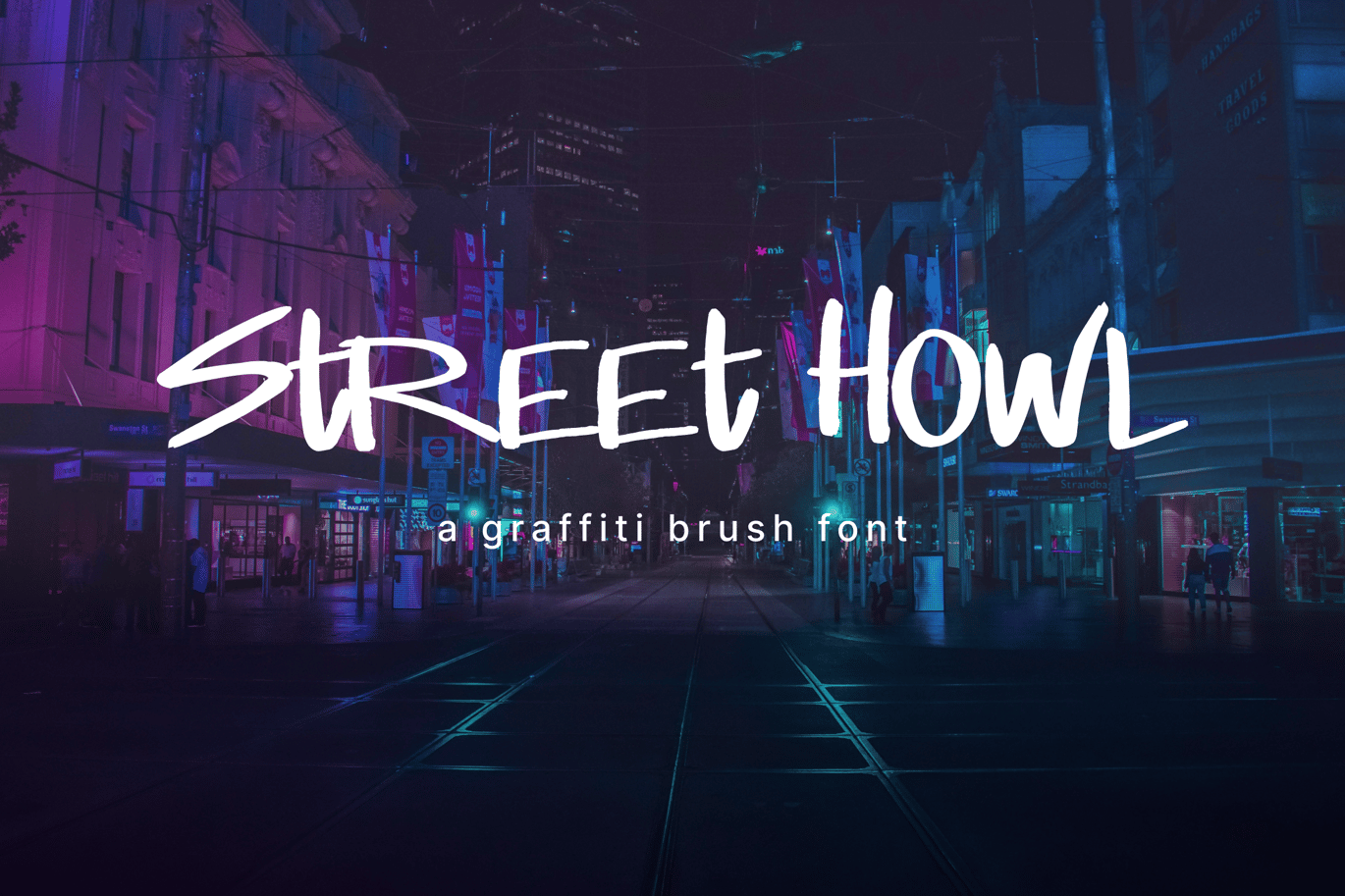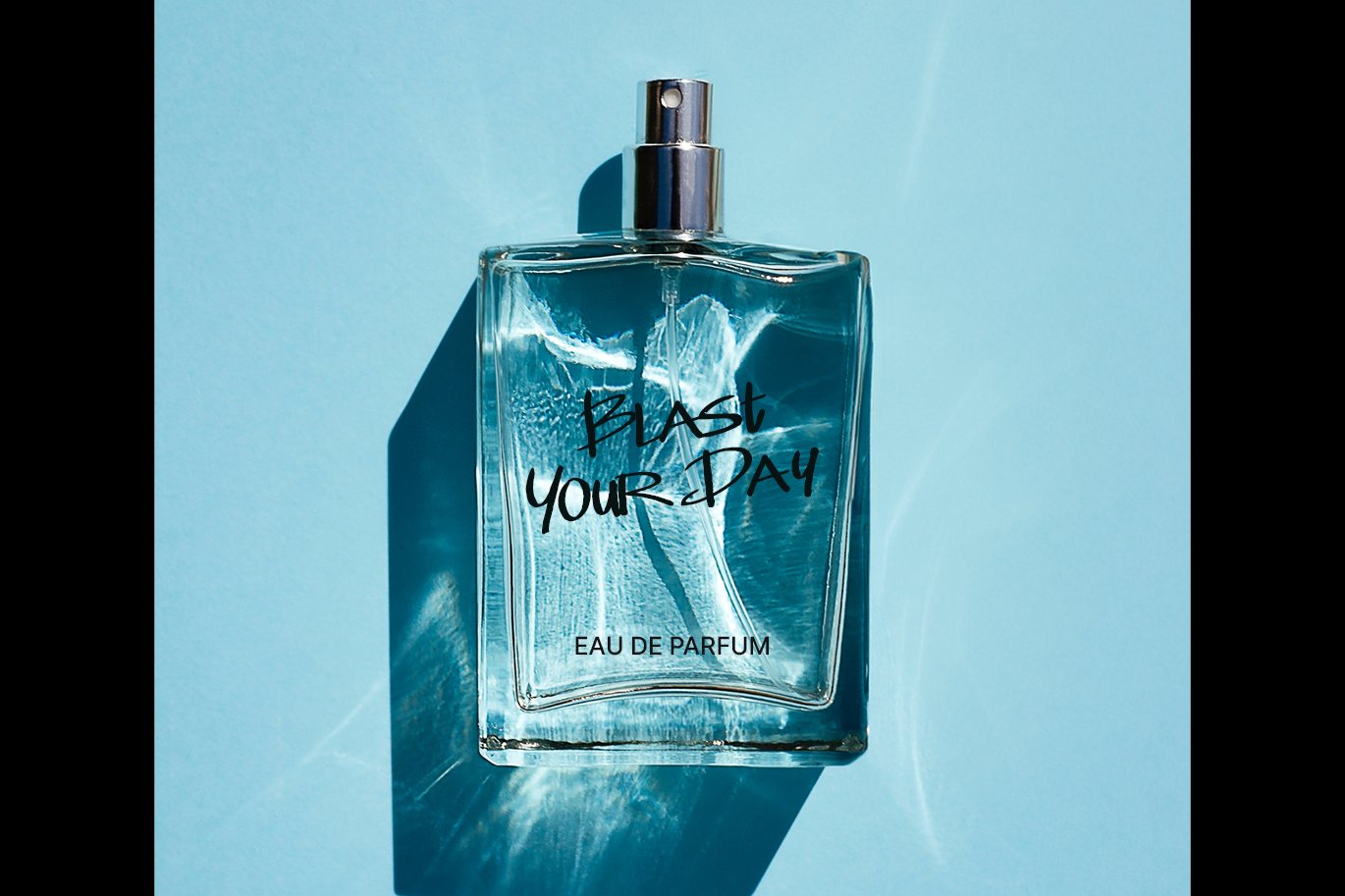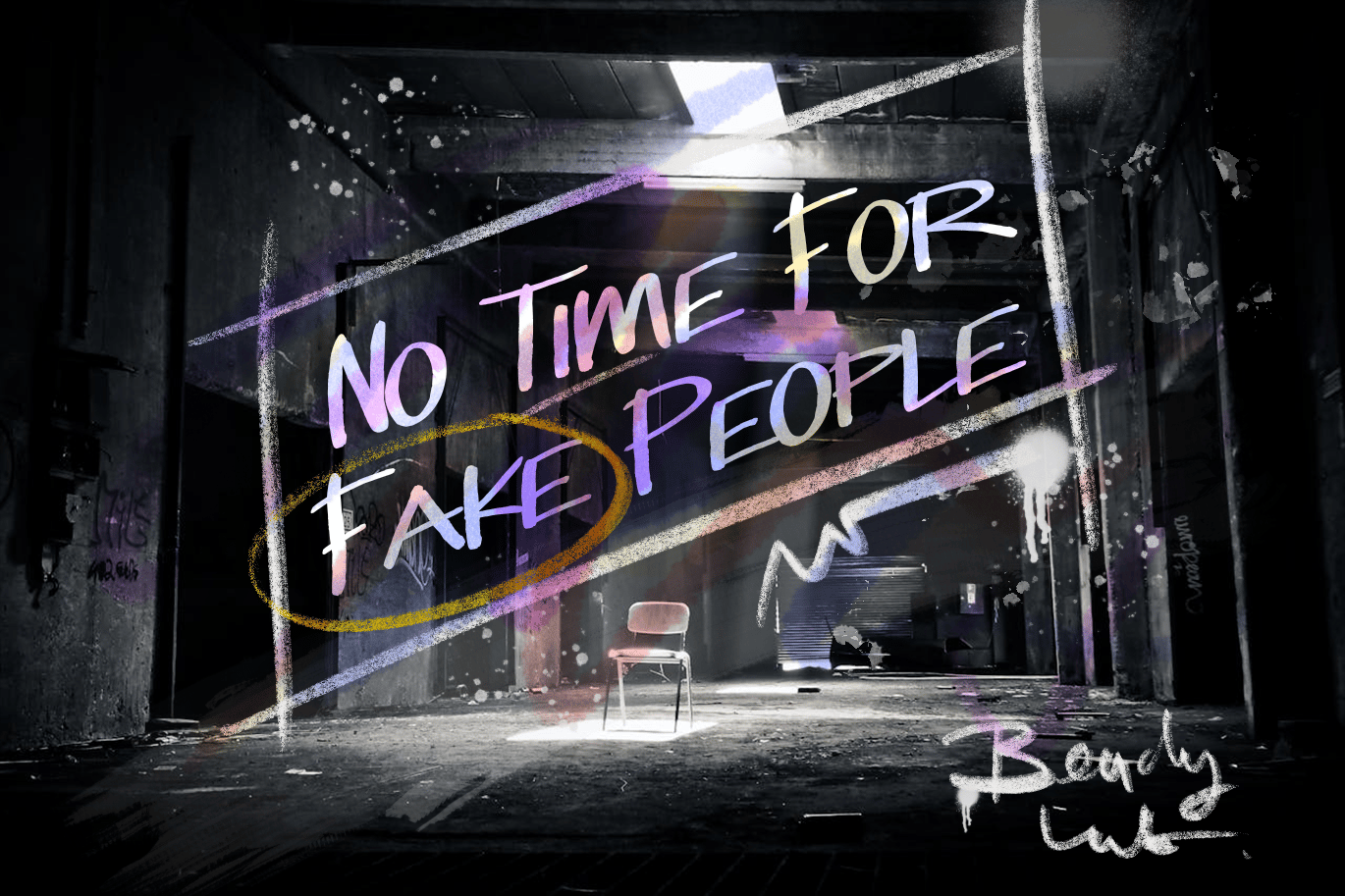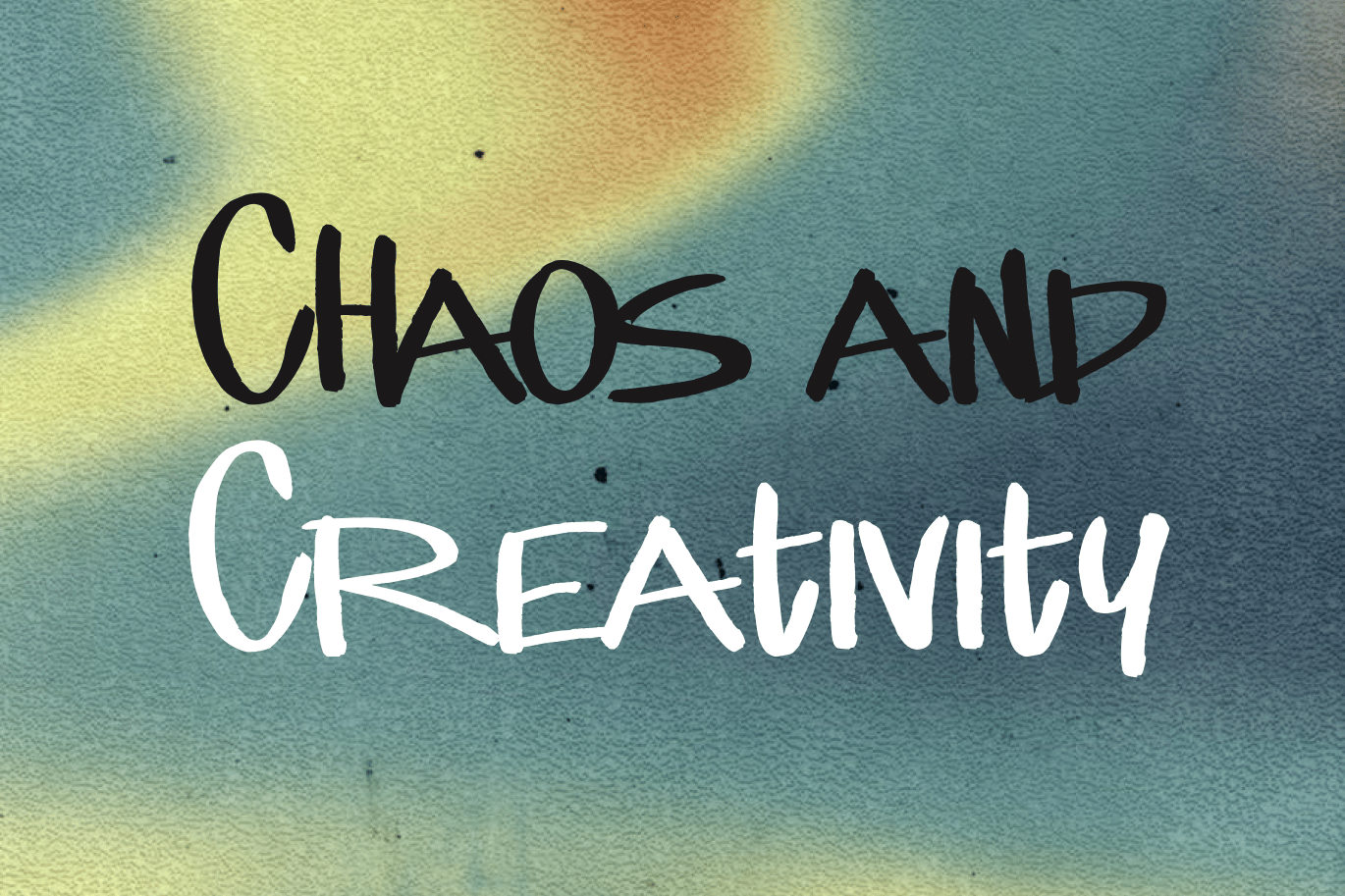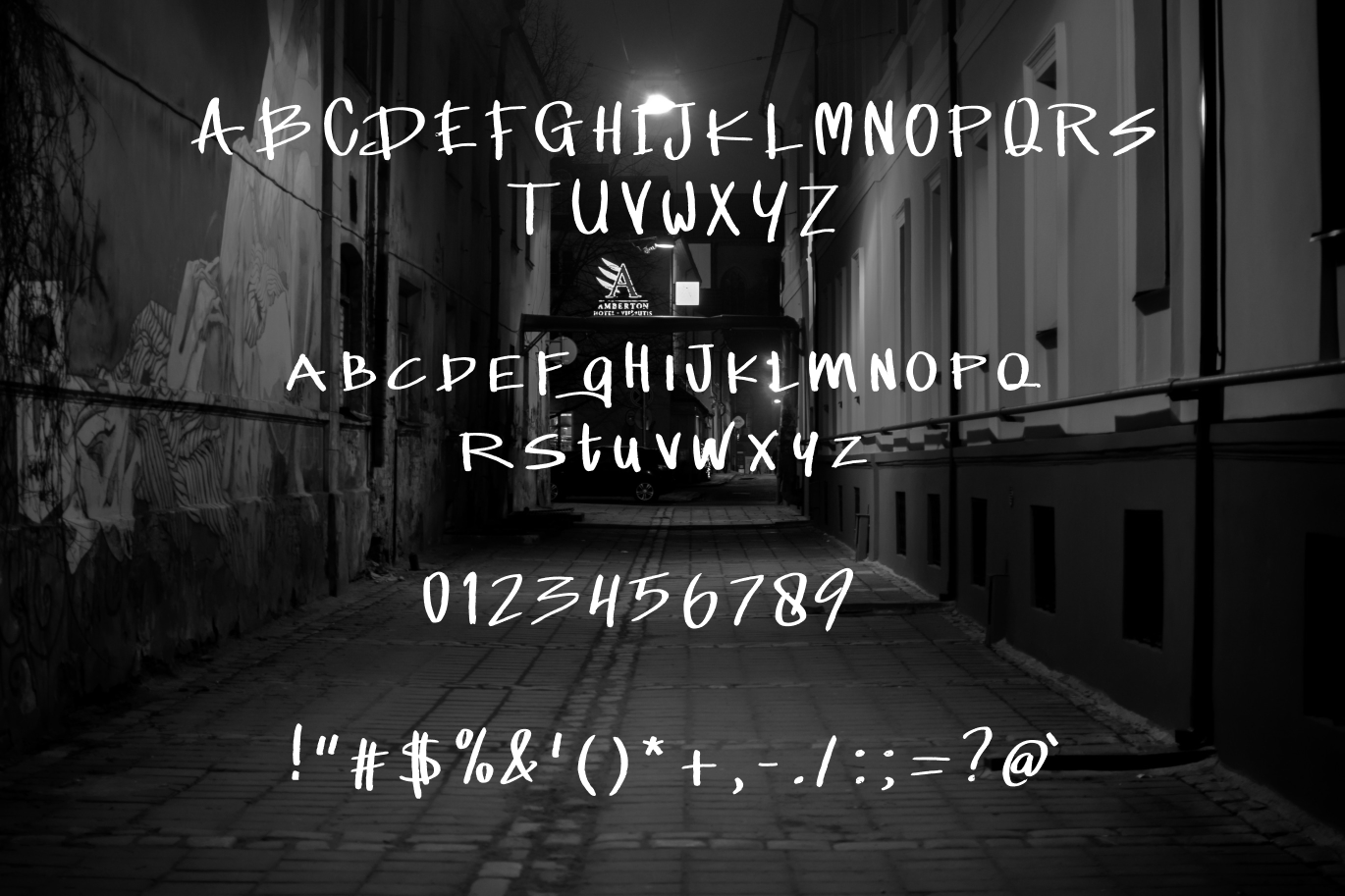
Street Howl – Graffiti Brush Font
Street Howl is a handwritten font for all your design needs. Great for street image products, men’s fashion, teens, fun, rebel, dark, heroes, strong, indie scene, youth, foods, art and design, street art, graffiti style, and localization characteristic design images. Suitable for tote bags, postcards, social media, billboards, fashion, foods, posters, stickers, labels, etc.